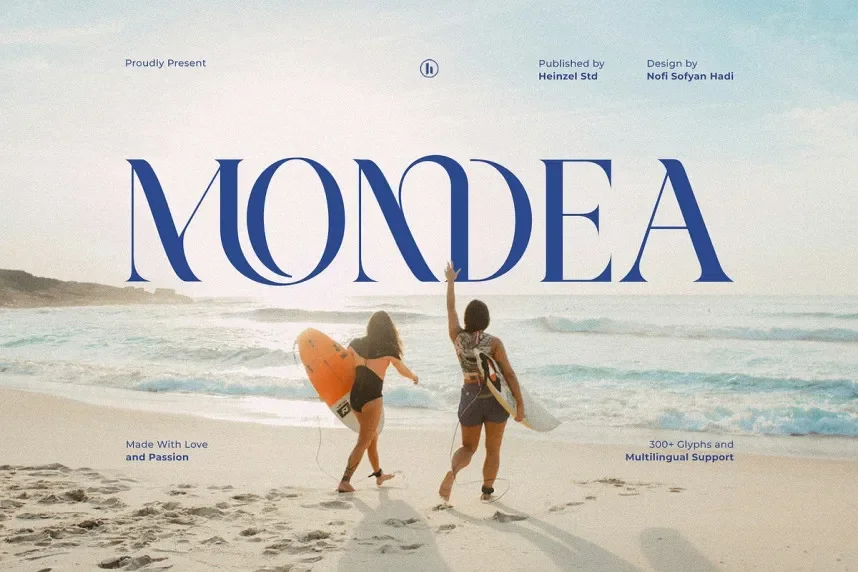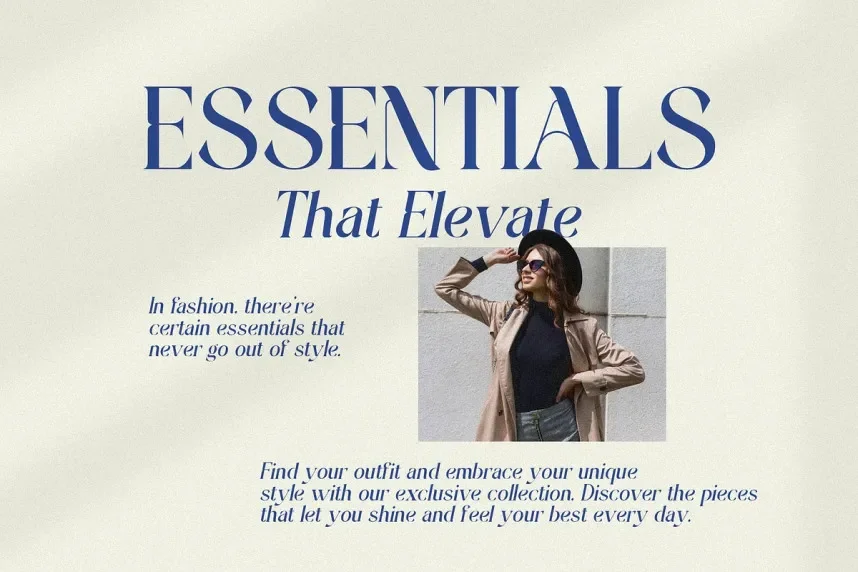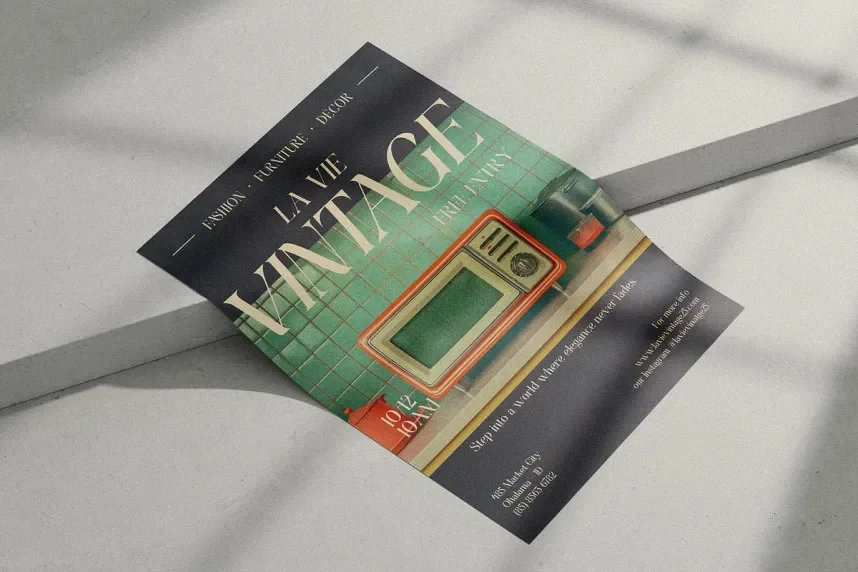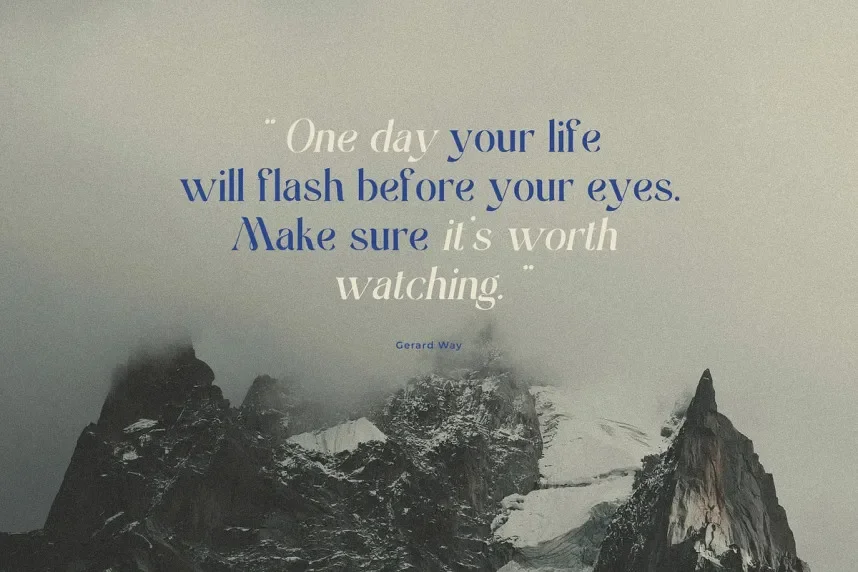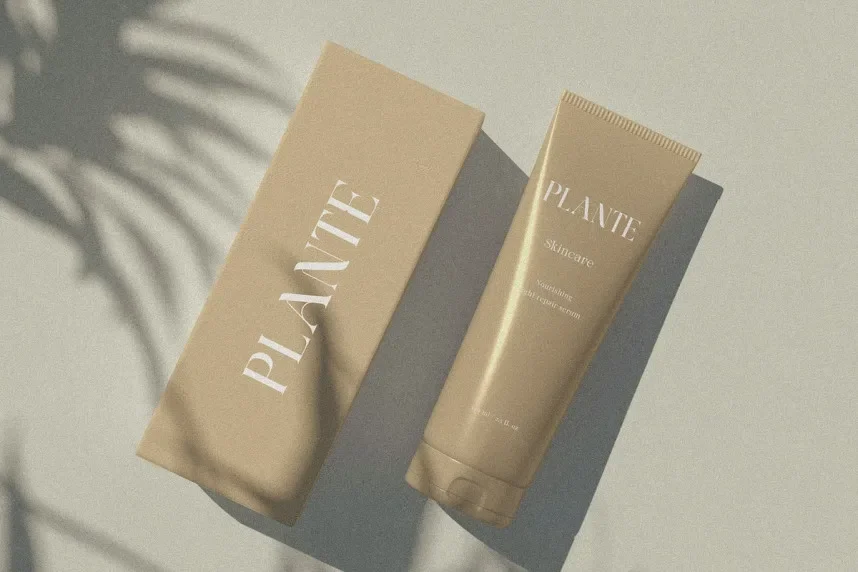
Mondea Font is a clean, modern sans-serif typeface designed for high readability and versatility. Its neutral design makes it suitable for a wide range of applications, including corporate branding, web design, and digital interfaces.
Best used for logos, website copy, and social media posts, Mondea Font pairs well with serif fonts for body text to create a professional look. Available in TTF and OTF formats, it includes a commercial-use license. Always review licensing for commercial use.